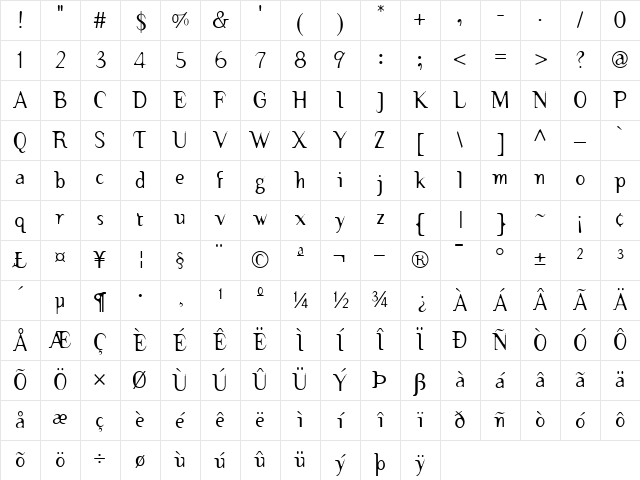
TemaCantante RegularA
Style: RegularA
Design Context for TemaCantante
TemaCantante is a composed and adaptable typeface that performs quietly and consistently across a wide range of design contexts.